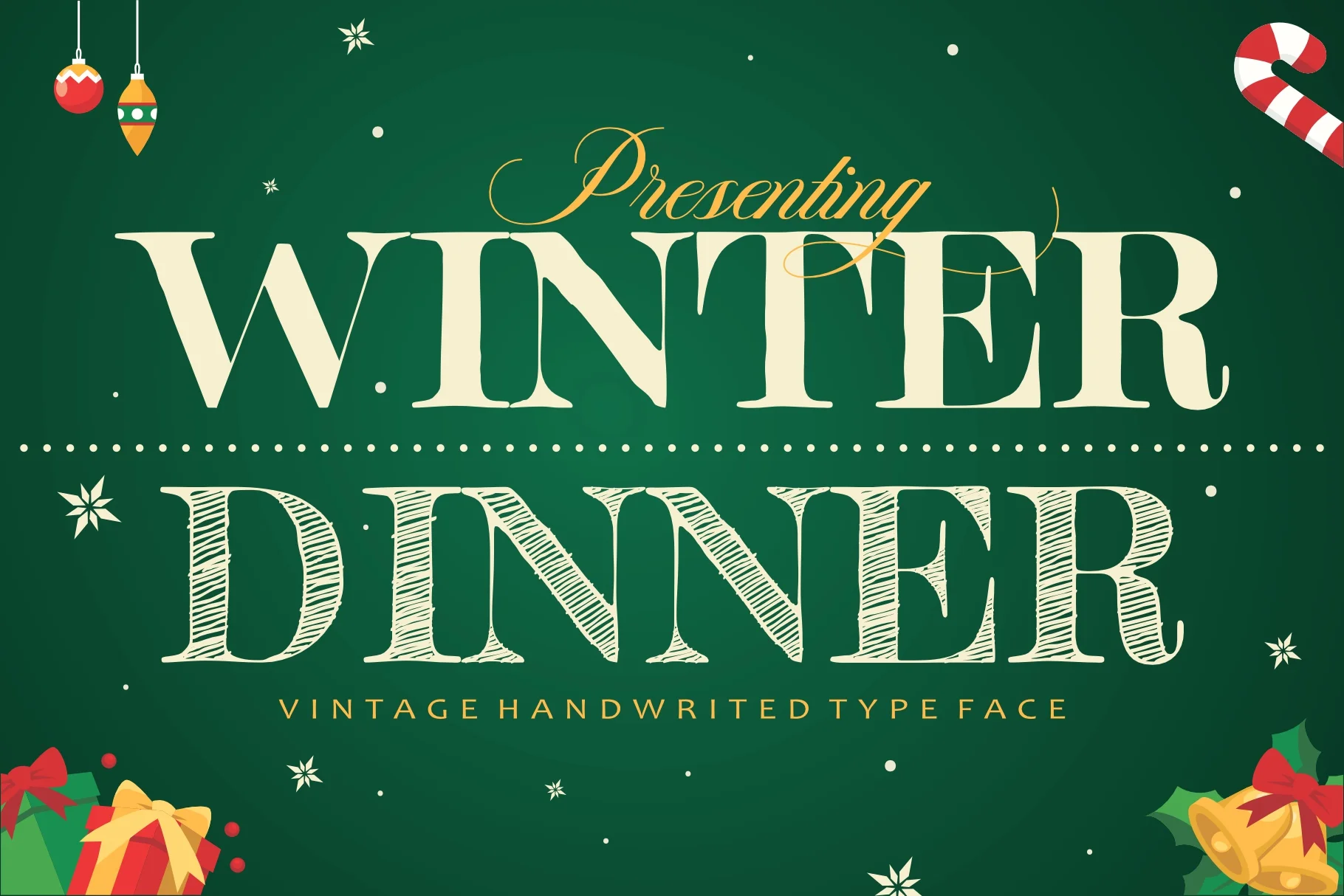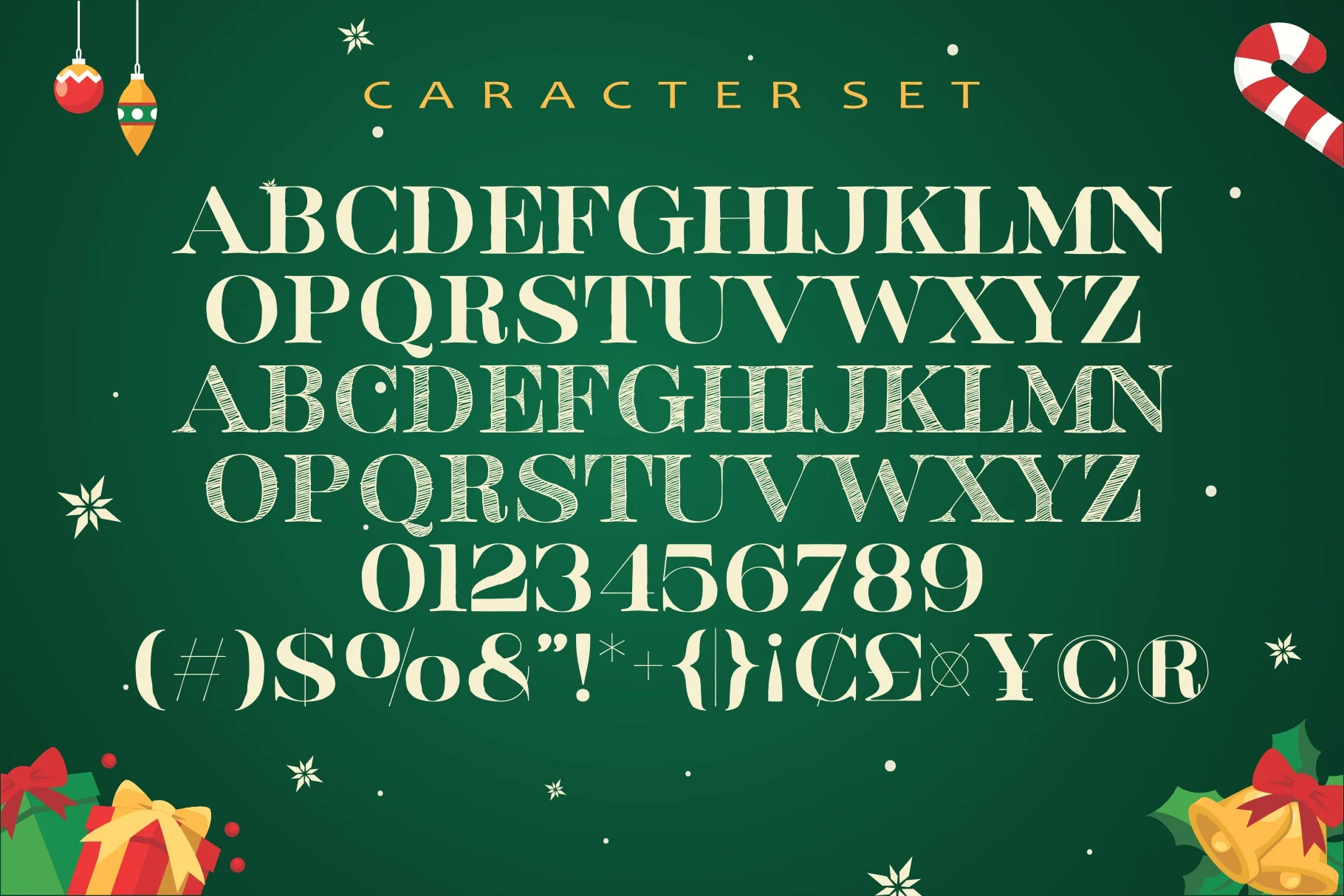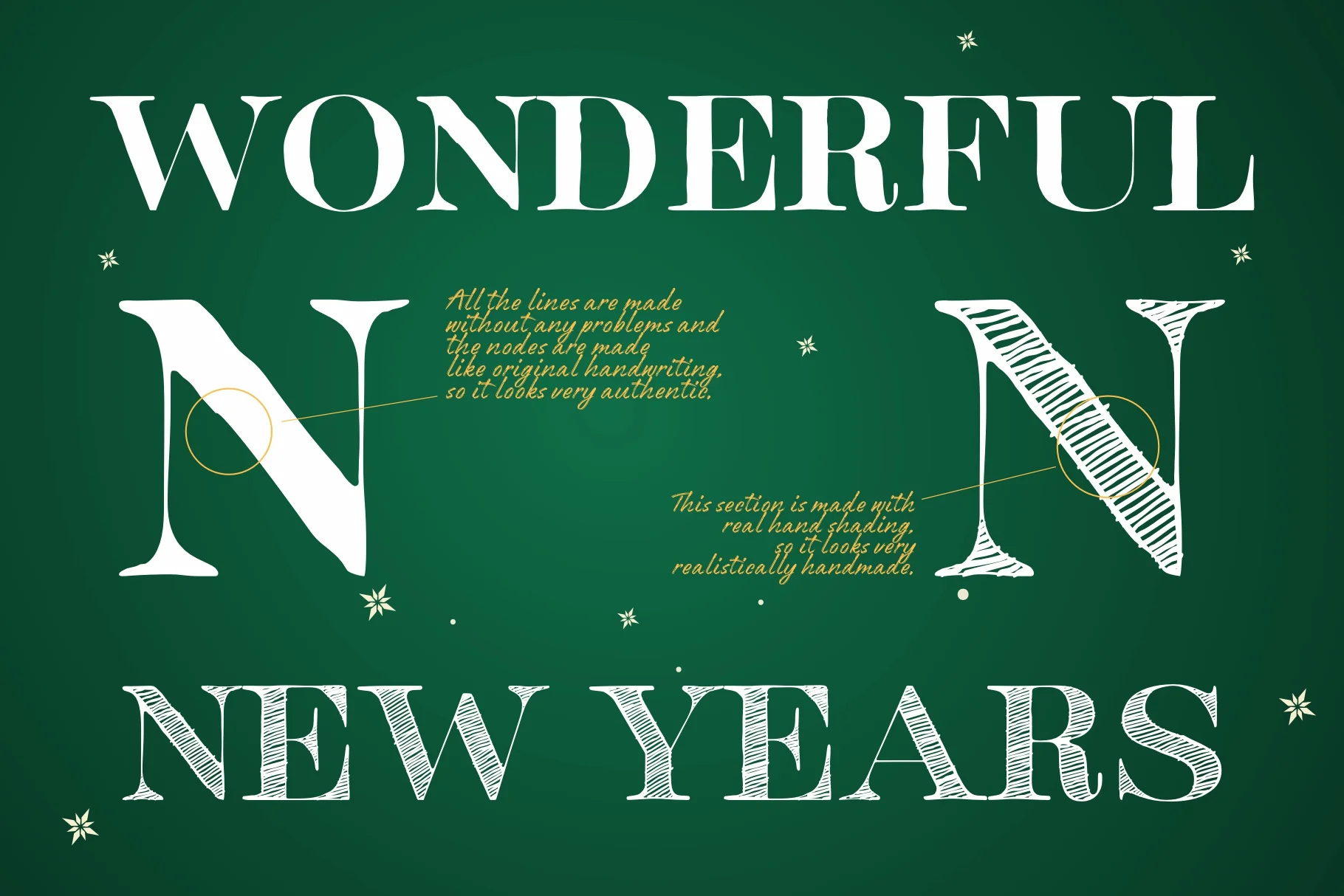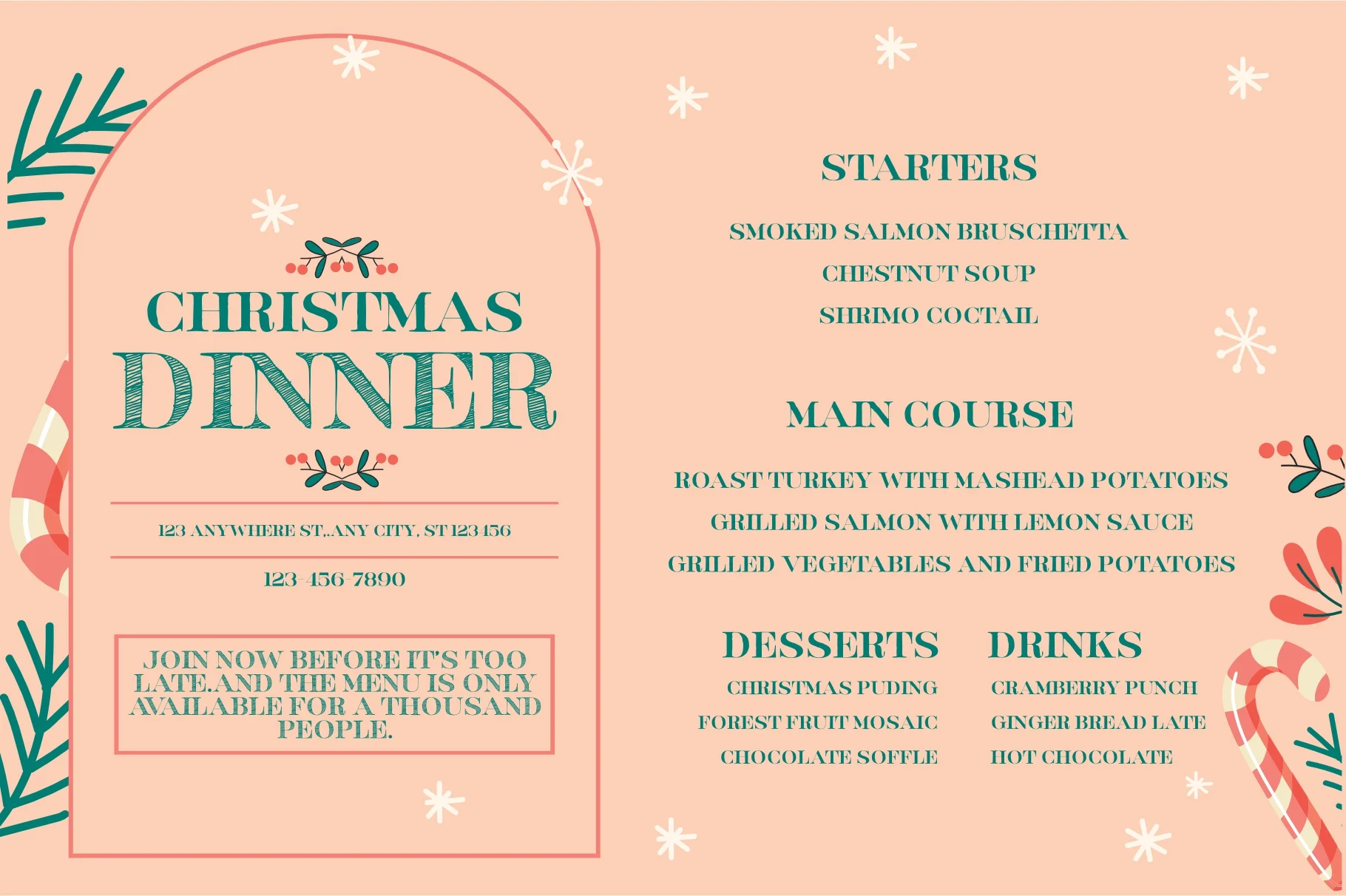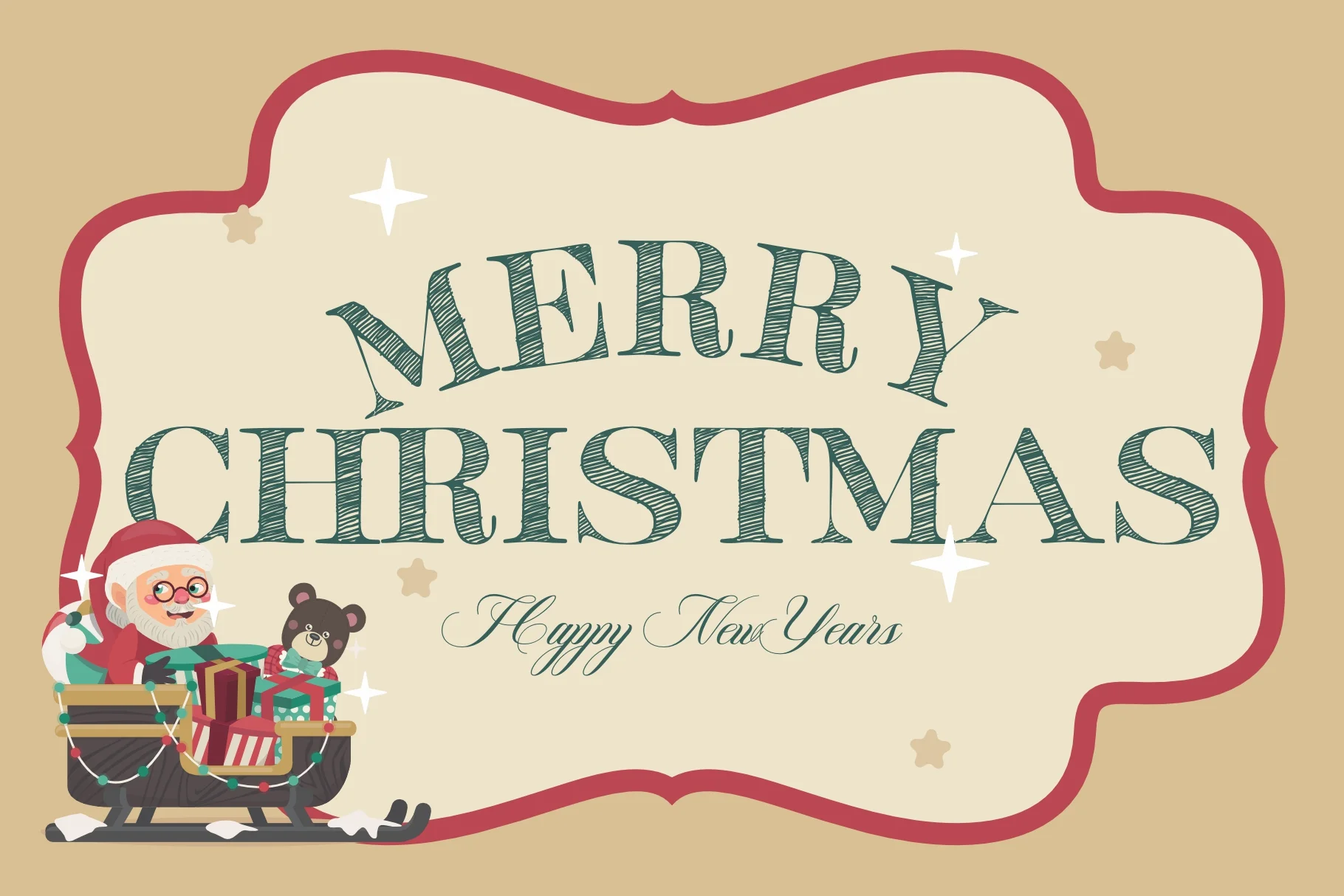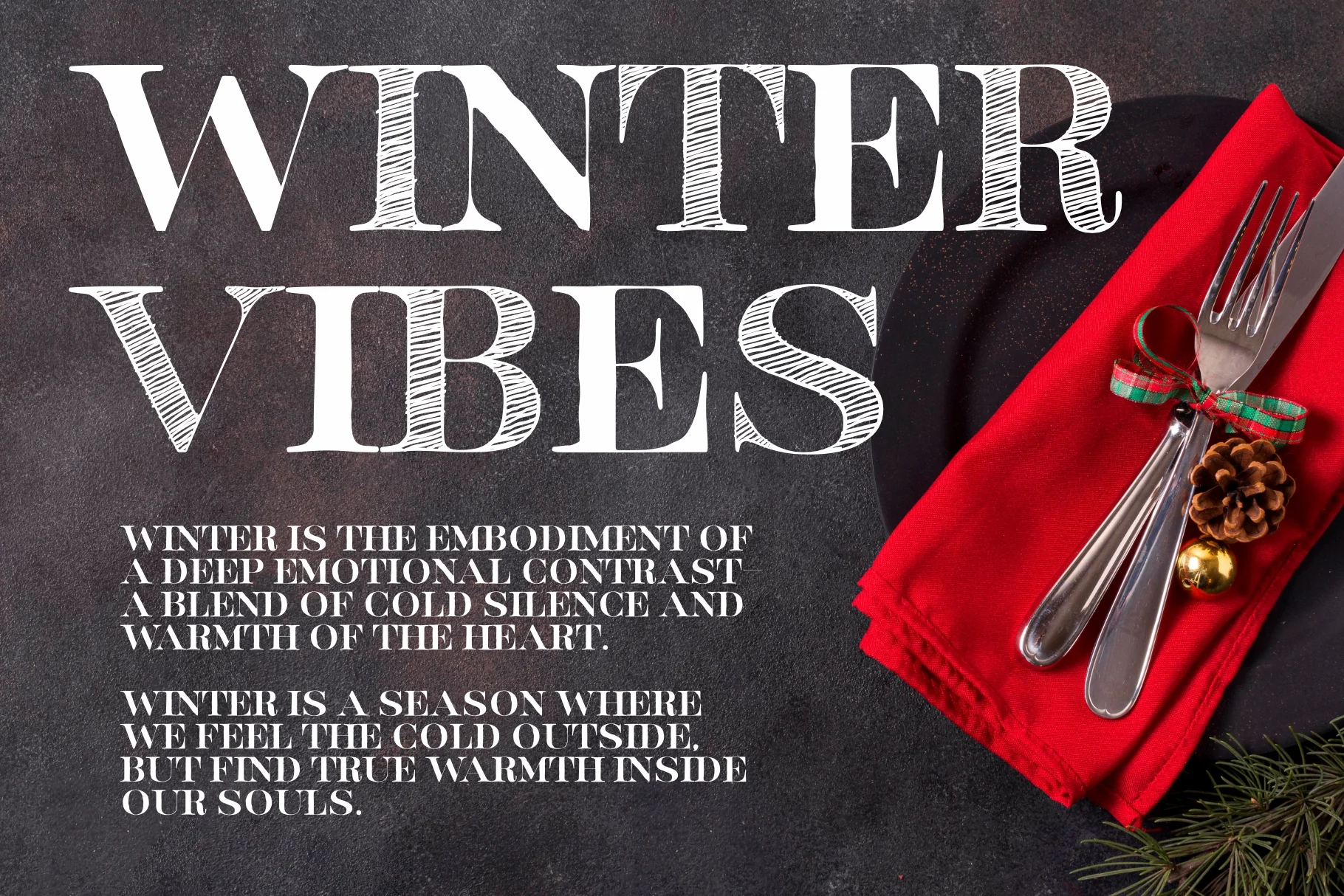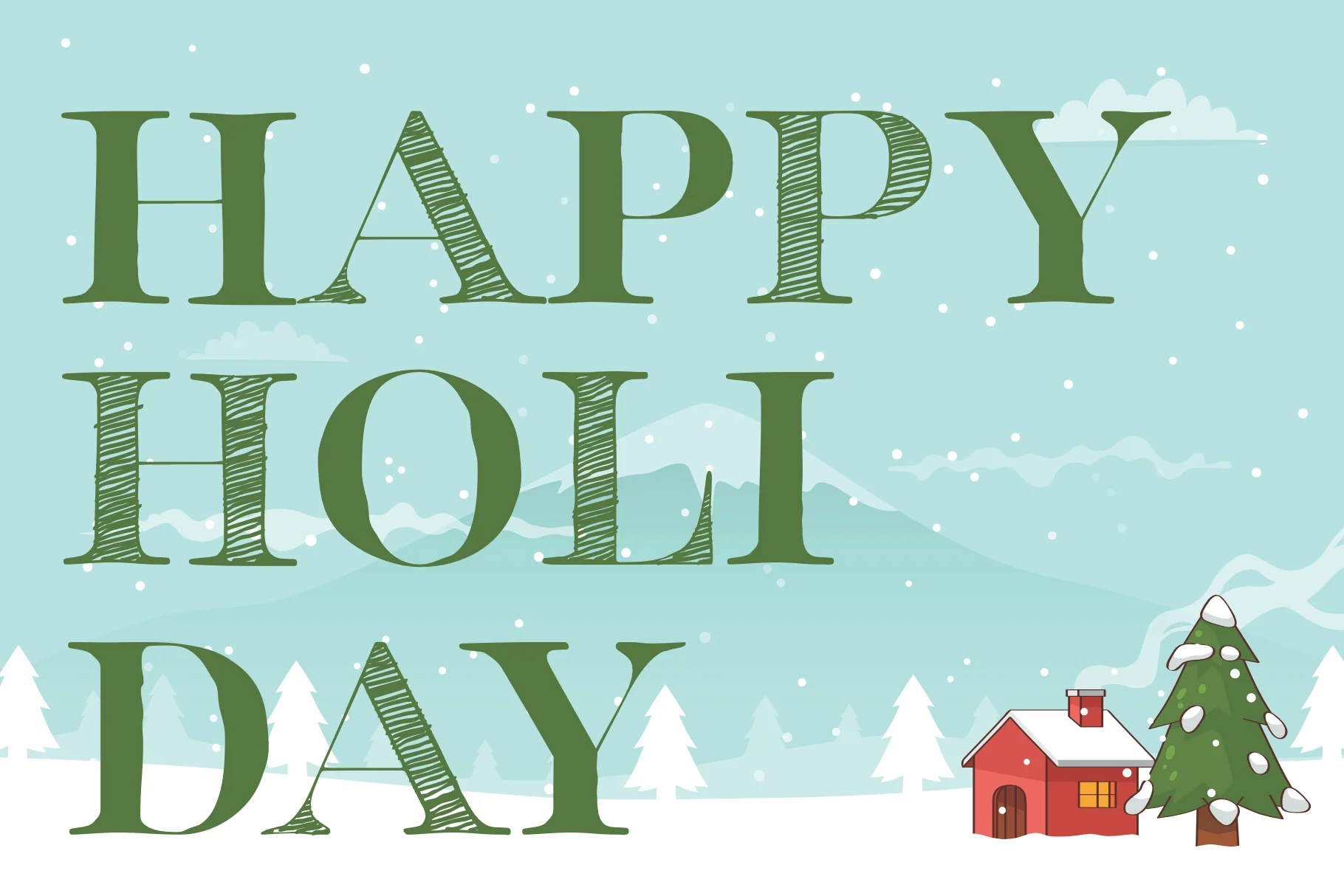
Winter Dinner
This Winter Dinner Typeface, or designer font, features a vintage handwritten style used in Christmas dinner menu posters.
Style: This font is described as a sweet, friendly, and charming handwritten display font, with a classy calligraphy influence yet a contemporary feel.
Usage: This font is ideal for wedding invitations, cards, and other design projects that require a playful or romantic touch.